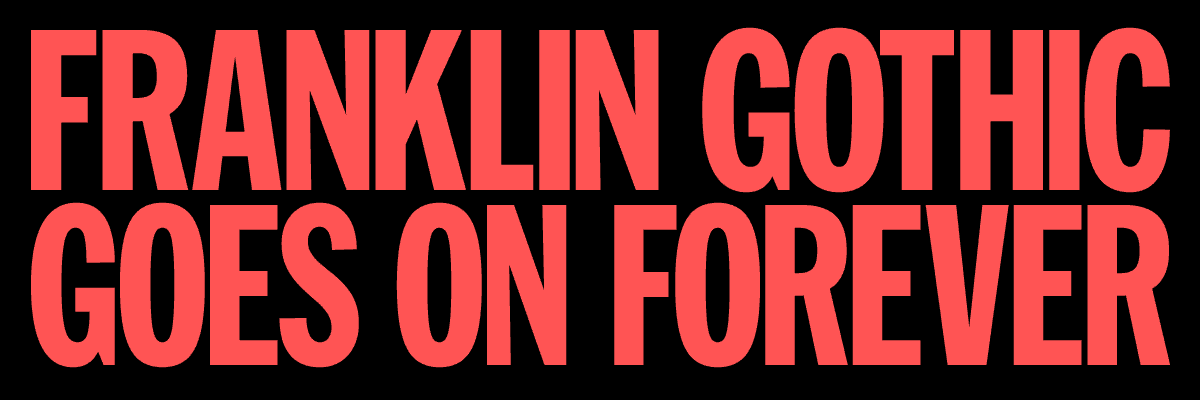
Since its debut at the beginning of the 20th century from the American Type Founders Company, the Franklin Gothic family of typefaces has played a major role in shaping the visual landscape of the United States. It has proven to be a versatile and timeless design for everything from hardcore punk bands to the US military.
This talk by Nick Sherman will cover historical info about Franklin Gothic and its relatives, a thorough examination of its design and usage, plus some personal background about how it became the first typeface he fell in love with, why he thinks it deserves more appreciation, and his own efforts to update it for the 21st century.
Nick Sherman
Nick Sherman is a typographer, web designer, typeface designer, and typographic consultant. He runs HEX Projects, a company that makes fonts and websites, and is a founder and designer of Fonts In Use and v-fonts.com.
A graduate of the Type@Cooper Extended Program in typeface design at The Cooper Union, Nick is also creative director and web designer/developer for their Typographics design festival. He is a member of the Future Fonts platform and has served on the board of directors for the Type Directors Club, the Adobe Typography Customer Advisory Board, and the artistic board for the Hamilton Wood Type & Printing Museum. A List Apart has published his writing on responsive design and web typography, and he occasionally talks and teaches classes on those topics.
Previously, Nick has worked at Font Bureau, Webtype, and MyFonts, directing web design and promotional material for digital typefaces. He graduated with honors from the Graphic Design program at MassArt in Boston, where he has also taught undergraduate typography, typeface design, and letterpress printing. Originally from Cape Cod and Boston, he is also a skateboarder, pizza enthusiast, printer, musician, and classic horror film buff.